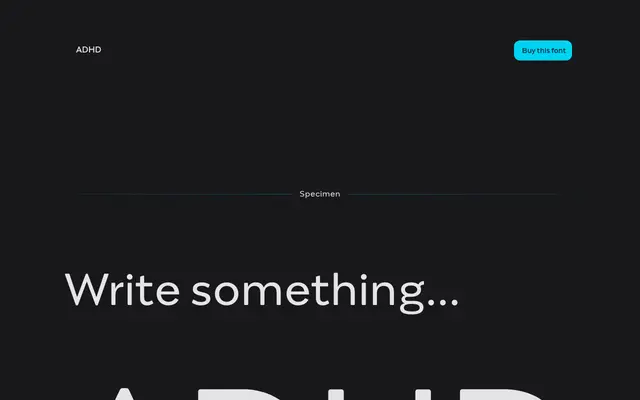
ADHD
Capitalics · Mateusz Machalski
A variable display typeface built on four morphing masters, drawing on Armin Hoffmann's grid research to produce letterforms that shift between geometric and expressive states.
Built from four compatible masters on a geometric, modular base, the family uses variable font interpolation to transform each letter across states named Focused, Hyperactive, Impulsive and Distracted. The system is designed for dynamic visual identities where type is expected to move or adapt rather than sit static. Conceived under the creative direction of Mateusz Machalski with a team of collaborators at Capitalics.
A modular, geometric variable typeface built on four masters that morph between states; its expressive interpolation and dynamic grid construction place it firmly in the display category.